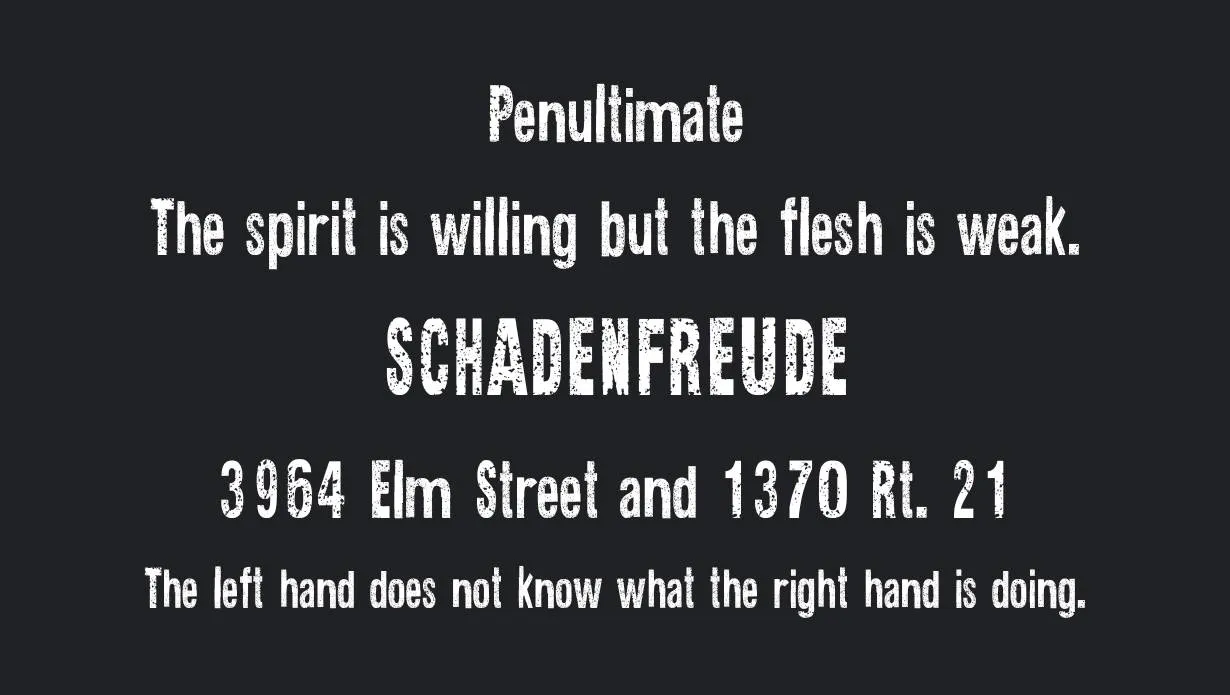
Texture Road Font is a textured and rustic typeface that adds a touch of warmth and authenticity to your designs. Its distressed appearance and unique characters make it perfect for projects that evoke a sense of vintage charm.
Whether you’re working on labels, packaging, or signage, Texture Road Font brings a rustic and handcrafted feel to your text. Its worn-in look and character make it a popular choice for designers looking to infuse their work with a sense of history and craftsmanship.
| Designer | Galdino Otten |